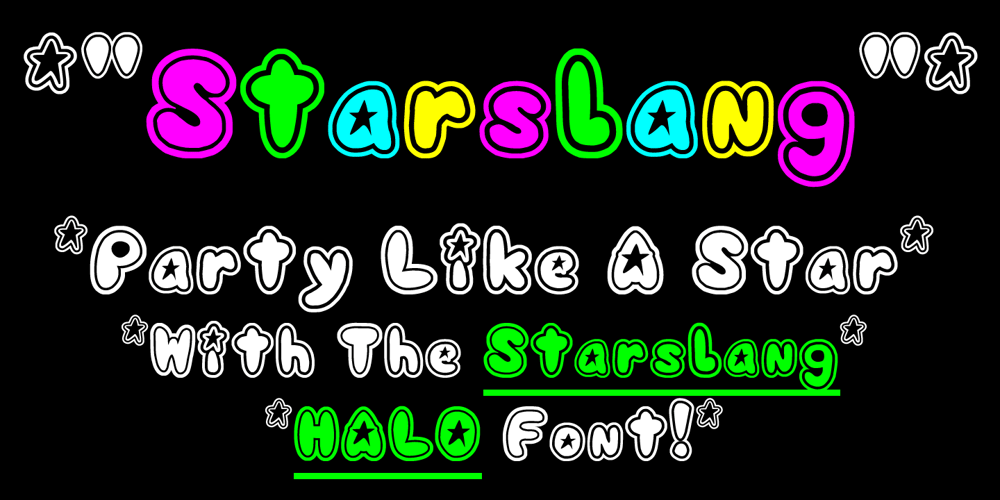
Starslang Halo Font Family was designed by Ted Lau and published by MyAnvil. Starslang Halo contains 1 styles and family package options. The “Starslang Halo” font is derived from the original Starslang Phat font. This typeface design features a halo that encompasses the glyph characters that creates a positive warm urban feel. It probably best suited to liven up parties, and makes reading more fun!